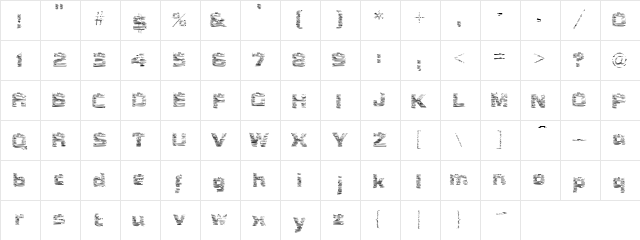
LK Bois wild wood
Design Context for LK Bois Typeface
LK Bois echoes the hand-painted signage and woodblock typography of the American frontier, with a warm, rugged personality.
A natural fit for craft spirits, ranch branding, rodeo events, and Americana-inspired design work.
Font Pairing: Combine LK Bois with a simple slab or neutral sans — period-accurate companions reinforce the vintage feel without competing for attention.
Pro Tip: Use LK Bois for short, impactful bursts of text — it shines in poster headlines and product names rather than extended copy.